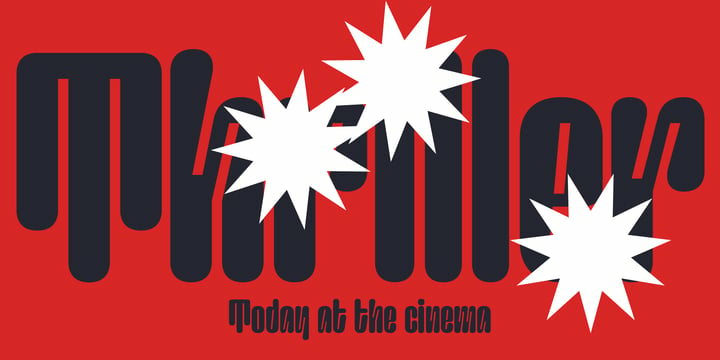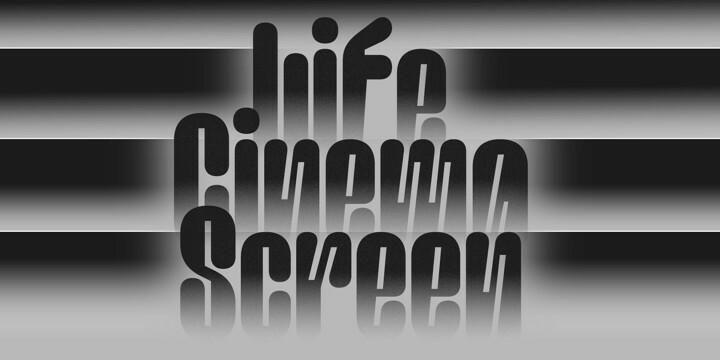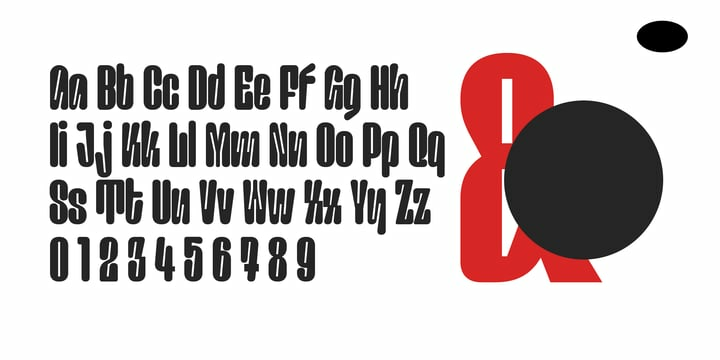
Life Cinema Screen Font
This font was inspired by an old photographic film package I found. Over time, the vertical slits in the letters have become more complex and acquired slanted sections.
The font is suitable for accidences: headlines, posters…